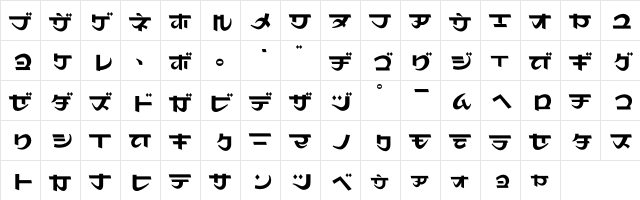
Maharani Katakana
Design Context for Maharani Typeface
Maharani offers clean, dependable letterforms without strong stylistic allegiance, making it a practical choice for designers who need flexibility.